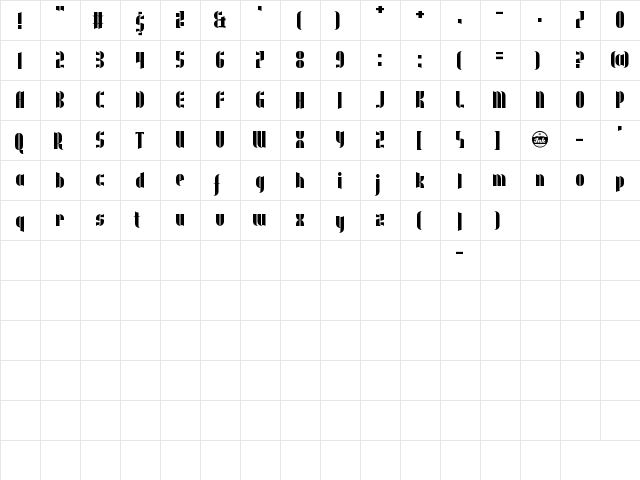
Underwear Protest Regular
Design Context for Underwear Protest Typeface
Underwear Protest is a composed and adaptable typeface that performs quietly and consistently across a wide range of design contexts.